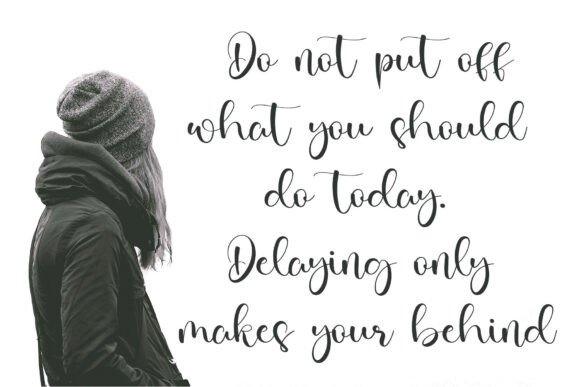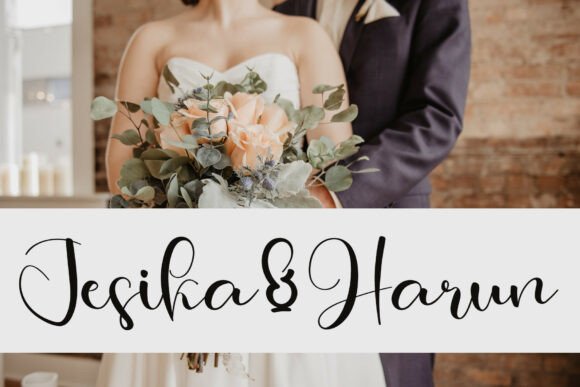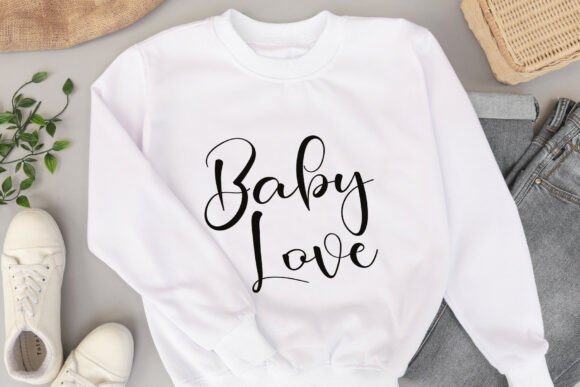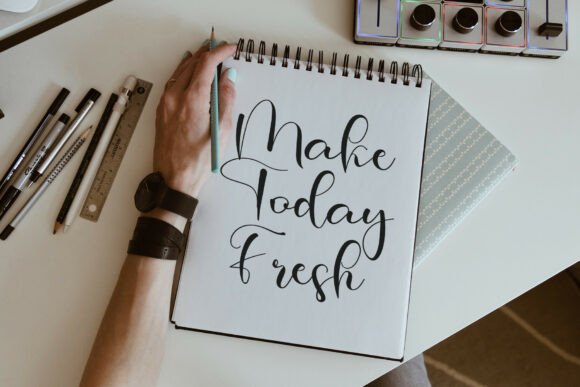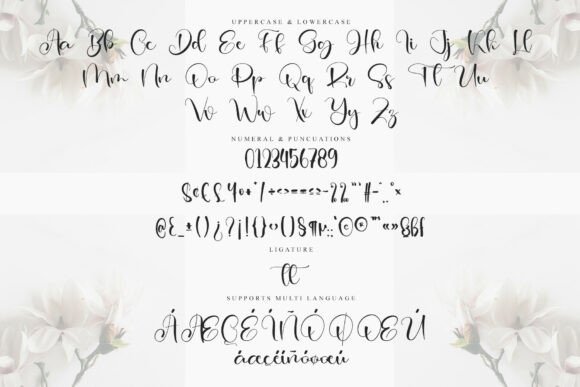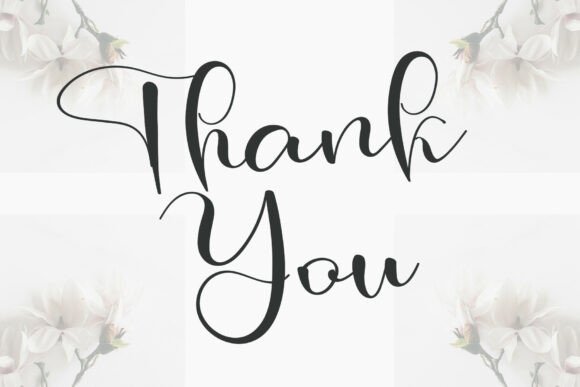
Introducing Chemical Elements Font: Elevate Your Designs with Elegance and Sophistication
In the world of typography, fonts play a crucial role in conveying the tone and personality of a brand or design. For designers and crafters seeking a font that embodies both elegance and power, Chemical Elements Font is an exceptional choice. This stunning font seamlessly blends the fluidity of script handwriting with a bold, timeless vintage touch, making it perfect for a wide range of applications.
The Beauty of Chemical Elements Font
Chemical Elements Font is a masterful creation that exudes class and sophistication. Its fluid strokes, graceful curves, and dynamic flow come together to create a truly unique and captivating visual experience. The font’s script handwriting style adds a touch of elegance, while its bold and vintage elements provide a sense of timelessness and authority.
Whether you’re looking to create a stylish signature, develop a branding design, or evoke a nostalgic vintage aesthetic, Chemical Elements Font is the perfect tool for the job. Its versatility and range make it an excellent choice for designers and crafters working on a diverse array of projects, from:
- Logo design and branding
- Invitations and event materials
- Web design and digital media
Key Features of Chemical Elements Font
Chemical Elements Font boasts a range of impressive features that set it apart from other fonts. Some of its key benefits include:
- Fluid strokes: The font’s fluid strokes create a sense of movement and dynamism, adding energy and life to your designs.
- Graceful curves: The font’s elegant curves add a touch of sophistication and refinement, making it perfect for high-end designs.
- Dynamic flow: The font’s dynamic flow creates a sense of rhythm and flow, drawing the viewer’s eye through your design.
- Bold and vintage touch: The font’s bold and vintage elements add a sense of authority and timelessness, making it perfect for designs that require a strong, classic look.
Why Choose Chemical Elements Font?
With so many fonts available, why choose Chemical Elements Font? Here are just a few reasons why this font stands out from the crowd:
- Elegance and sophistication: Chemical Elements Font is the perfect choice for designers and crafters seeking to create elegant, sophisticated designs.
- Versatility: The font’s versatility makes it suitable for a wide range of design applications, from logos and branding to packaging and web design.
- Uniqueness: Chemical Elements Font is a truly unique and distinctive font that will help your designs stand out from the crowd.
Tips for Using Chemical Elements Font
To get the most out of Chemical Elements Font, here are a few tips to keep in mind:
- Use it sparingly: While Chemical Elements Font is a stunning font, it’s best used sparingly to avoid overwhelming the viewer.
- Experiment with colors and textures: The font’s bold and vintage elements make it a great choice for experimenting with different colors and textures.
- Pair it with other fonts: Chemical Elements Font pairs well with a range of other fonts, making it easy to create visually interesting and dynamic designs.